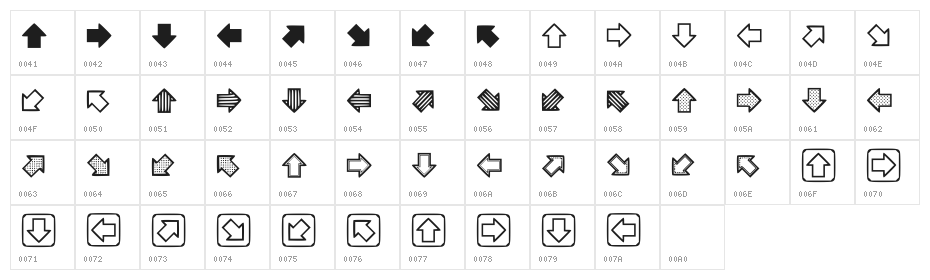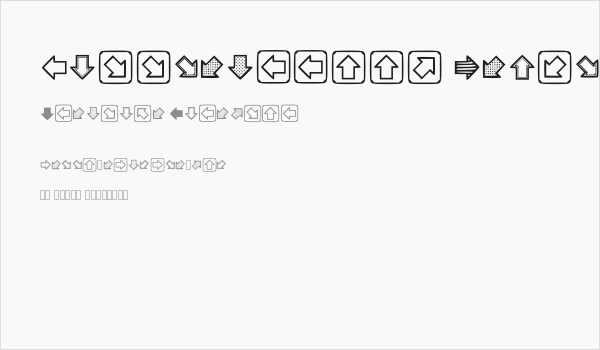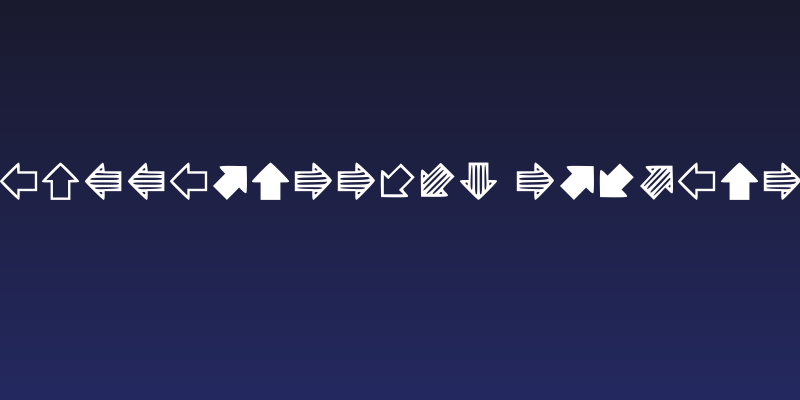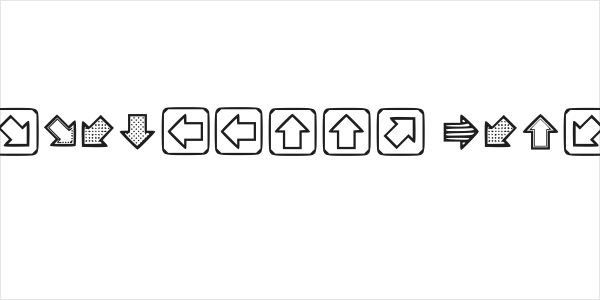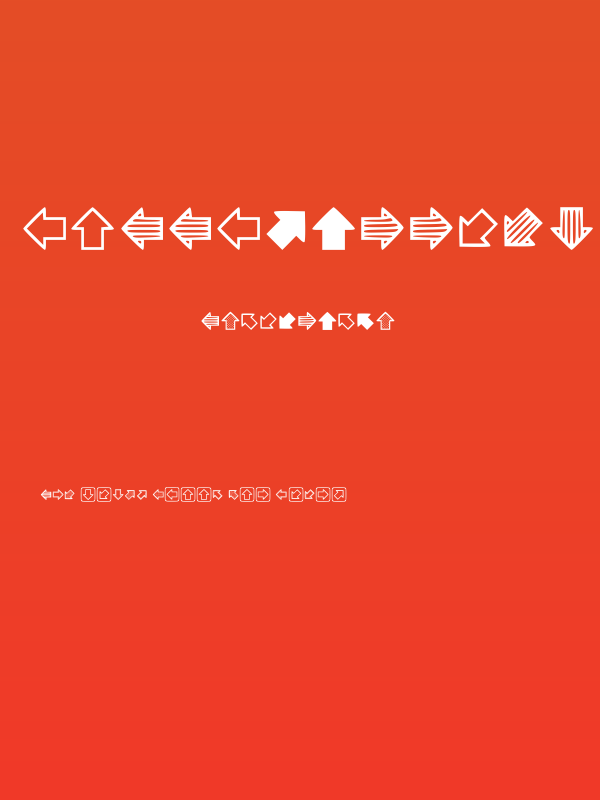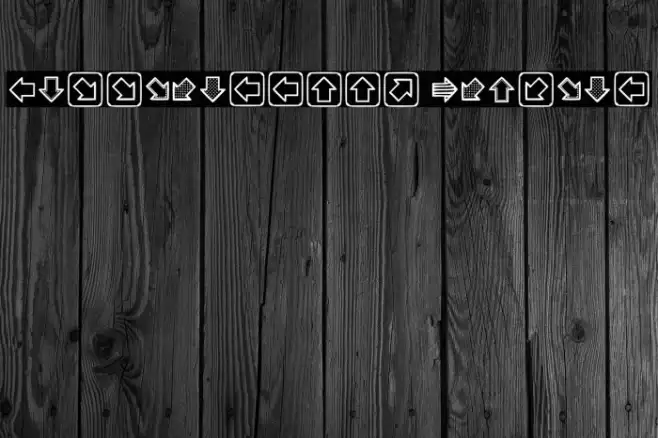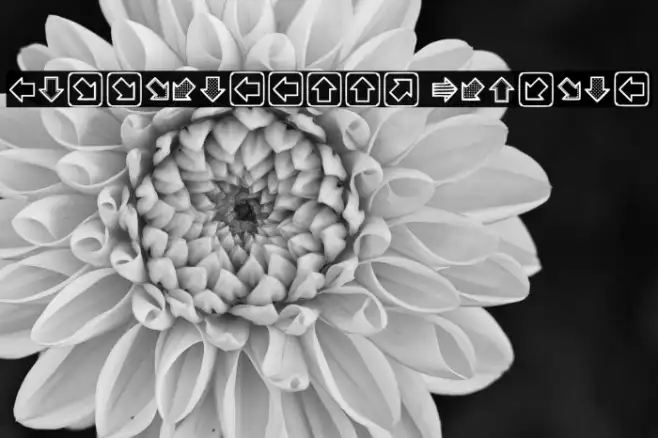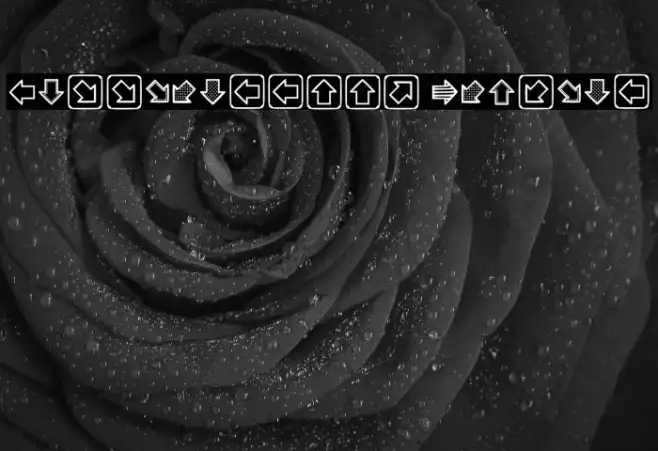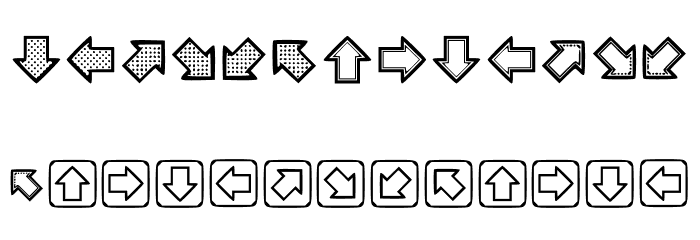
Littlearrows Regular Font
Littlearrows Regular Description
This unique font features a variety of arrow designs, each with distinct styles and patterns. The arrows are bold and geometric, with some filled in solid black, others outlined, and some featuring intricate patterns like stripes and polka dots. The font includes arrows pointing in multiple directions, offering a versatile range of symbols for navigation or decorative purposes. Each arrow is distinct, with some enclosed in squares, adding a structured and organized appearance. The overall design is playful yet functional, making it suitable for creative projects that require directional indicators or thematic elements.
| Use Case | Logos, Infographics, Signage |
| Proposed Projects | Ideal for infographics, navigation signs, educational materials, and creative design projects requiring directional symbols. |